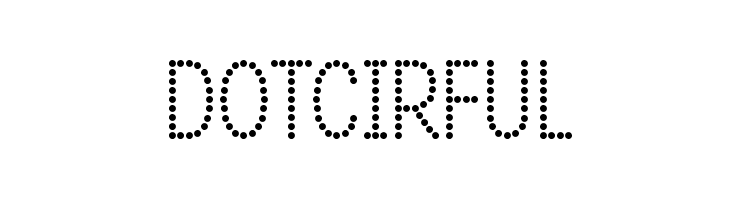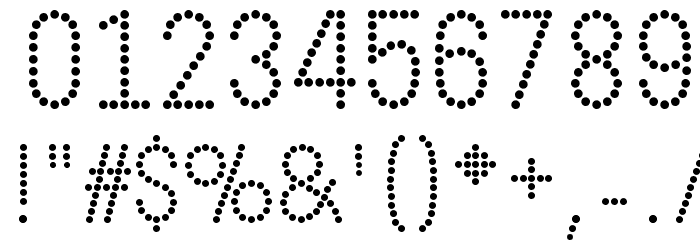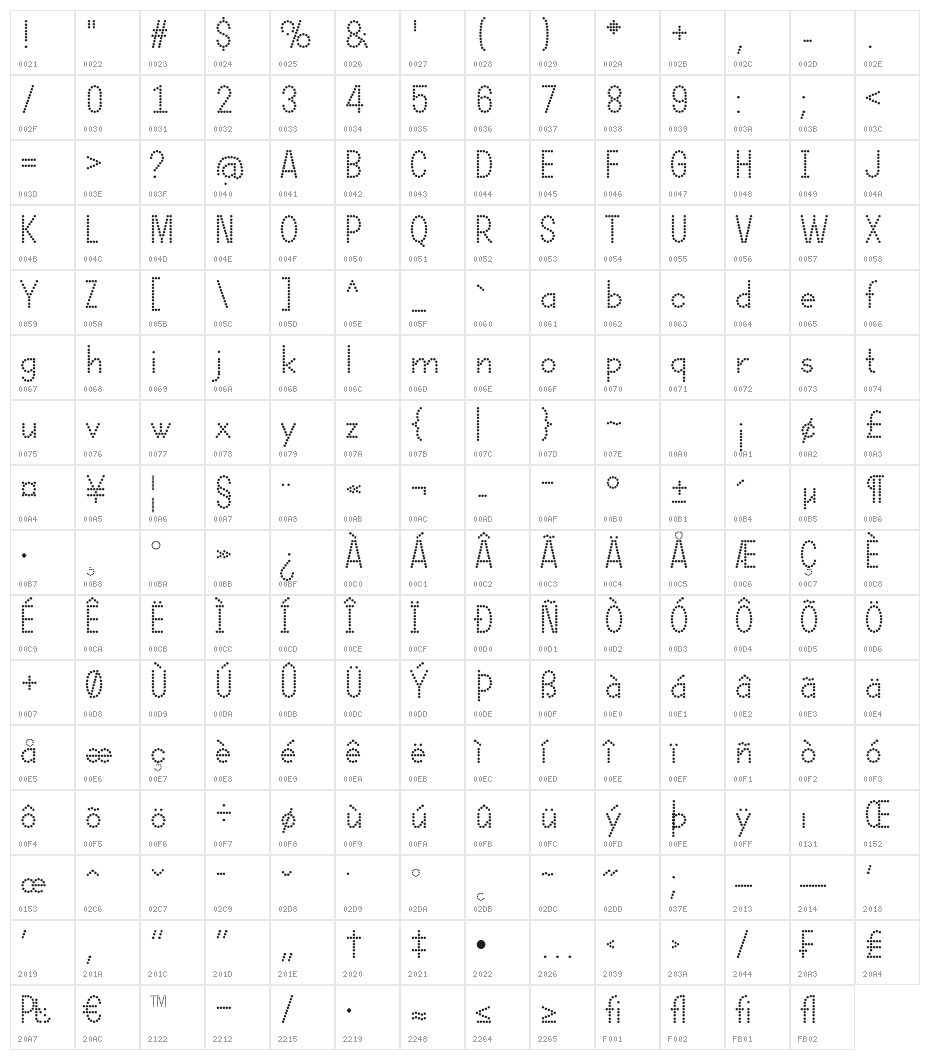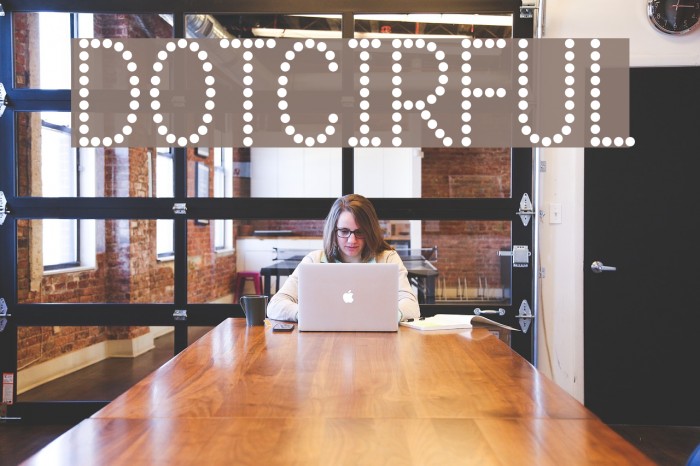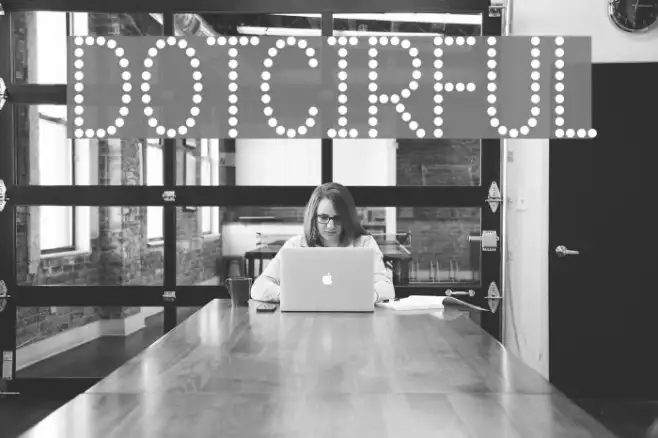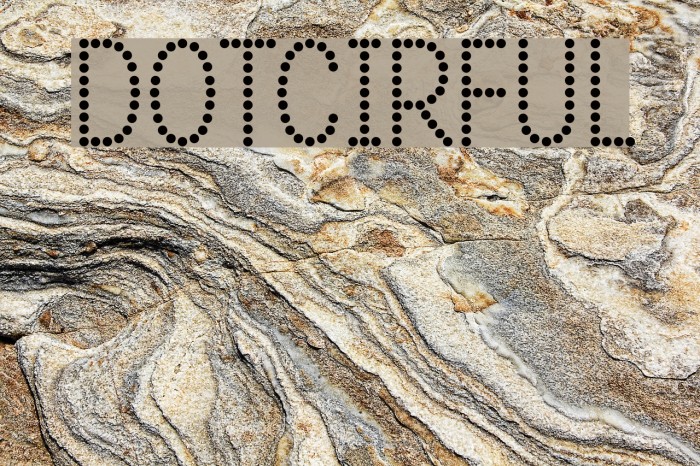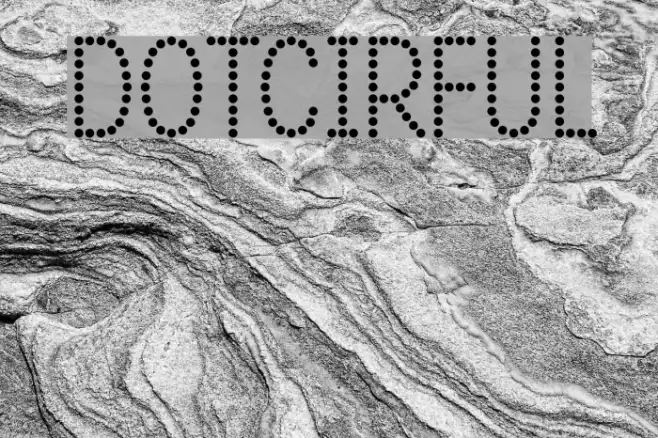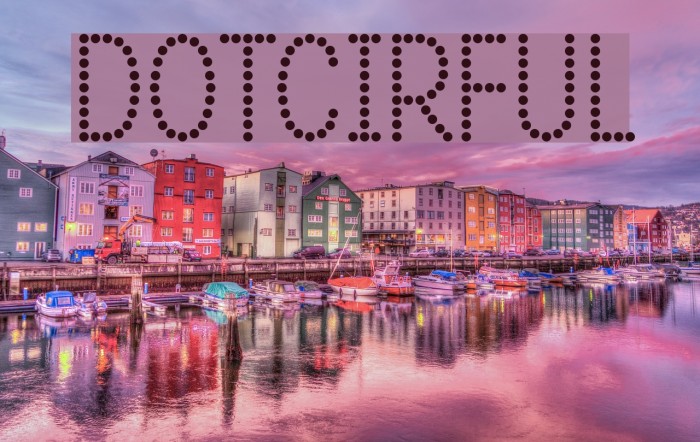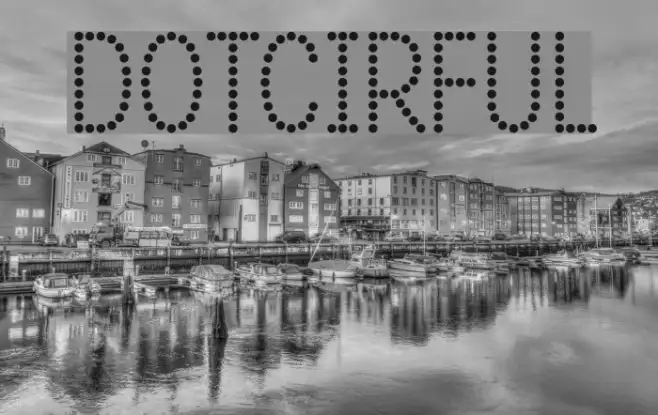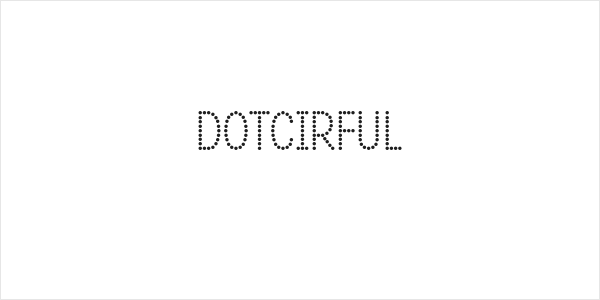
DOTCIRFUL Font
DOTCIRFUL Description
This font is a unique and playful design composed entirely of dots forming each character. The circular dots are evenly spaced, creating a cohesive and uniform appearance. The font maintains a consistent size for each dot, giving it a clean and structured look. It is highly decorative, making it suitable for creative and artistic projects. The uppercase and lowercase letters, along with numbers and special characters, are all crafted with the same dotted style, ensuring a harmonious visual effect across different text elements.